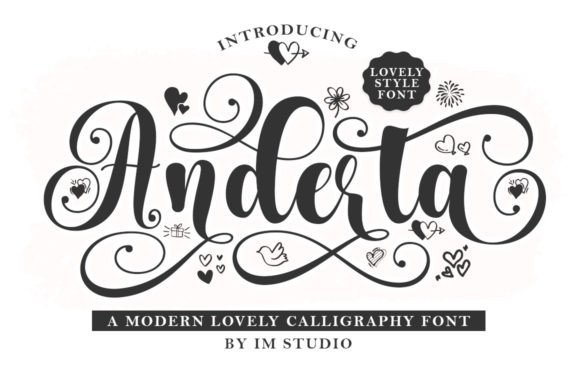
Introduction to Anderta Font
Anderta is a smooth, elegant, and flowing calligraphy font perfect for your favorite projects.
Fall in love with its completely different and timeless style, and use it to create spectacular designs This font is PUA encoded, which means you can access all the glyphs and sweeps with ease.